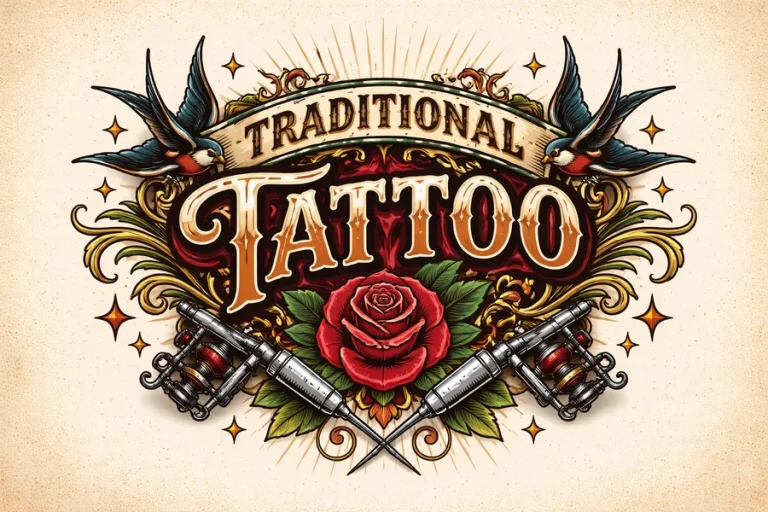
Traditional Tattoo Font Ideas for Bold and Timeless Designs
Traditional Tattoo font is an undisputed part of tattoo culture more than 100 years. This type of typography has been the hallmark of bold lettering, sharp lines and powerful personality and has become an art classic in tattoo design. The lettering style has strong significance and aesthetic strength, as it did since the times of sailors in the early 1900s, and it has today with the tattoo lovers.
This type of lettering is derived out of the American Traditional tattoo movement. The tattoos that sailors typically got were usually symbolic of their journeys, convictions and family. The words and names were frequently inked with bold and decorative lettering that was capable of standing the test of time on the skin. This unique style became over the years what is today known by many people as the traditional type of tattoo.
The letterforms of these fonts continue to be used today in designers and tattoo artists since these types are easily read, striking to the eye and have a lot of character. The style is very strong in its cultural identification whether it is the body art style, posters, or branding.
Key Characteristics of Traditional Tattoo Font
The recognizable features of design make this kind of lettering popular and one of the reasons that contribute to its popularity. There are some broad-based visual rules that create traditional tattoo lettering to be perceived against other fonts.
To begin with, bold strokes are one of the features. The use of thick outlines at least makes the letters clear even when the tattoos get old. This utilitarian design feature has since become one of the iconic features in the tattoo scene.
Second, the decorative features are frequently mentioned in the letters. Little curls, spikes or serif like edges provide character but do not render the text hard to read. These facts form a retro-style which reminds the traditional tattoo art.
The other typical characteristic is heavy spacing and balance. The letters are made to appear heavy and molded such that the words can be read out even when at a distance. It is particularly critical when it comes to tattoos since the drawings should not be obscured on curvy areas of the body.
Lastly, most of the classic letterforms of tattoos are somewhat insubordinate and daring. The shapes are assertive and communicative, that is why they are commonly used with significant words, slogans and names.
Popular Styles Inspired by Traditional Tattoo Font
Certain lettering styles have been based on the old-fashioned tattoo typography. All these have their distinct personality, but have a common appearance of bold and vintage style attributed to the tattoo culture.
The most familiar is old school lettering. It has heavy lines and a little rounded over edge, and is often combined with traditional tattoo symbols including anchors, roses and swallows.
Another form of fonts is sailor. These fonts were shaped by the nautical motives and could be regularly met in the tattoos symbolizing the sea adventures or the maritime culture.
Vintage script styles also steal some features of the traditional tattoo lettering. These fonts are usually adorned with graceful curves and ornamental lines without sacrificing the bold lines required to do tattoos.
Contemporary designers have as well developed computerized typeface designs based on the conventional tattoo letters. These fonts are widely applied in the graphics design, branding of clothing and in the poster industry since they provide a nostalgic impression of traditional tattooing.
How Tattoo Artists Use Lettering in Designs
Lettering is a very strong element in tattoo art as letters are usually highly personalized. A suitable tattoo font contributes to conveying that meaning in addition to contributing to the overall visual aesthetic of the tattoo.
Tattoo makers are very keen to the type of lettering that they use depending on the theme of the tattoo. As an illustration, the bold traditional lettering is typically used in memorial tattoos as it is perceived to be strong and permanent. Correspondingly, inspirational quotes or personal slogans are also often made with a traditional tattoo typography.
The position is also important when dealing with lettering tattoos. Curved regions like the forearm, chest or shoulder must use fonts that can be read without any movement of the skin. These parts can be used with traditional lettering of tattoos since the thick lines are clear.
Artists might also mix lettering with conventional imagery of tattoos. Symbols such as heart, dagger or banner can be surrounded by words to make complete and significant compositions.
Tips for Choosing the Right Traditional Tattoo Font
The choice of the appropriate lettering style can be both aesthetic and practical. A nice tattoo font must complement the content, but also it must be aging well on the skin.
Can traditional tattoo fonts be used in graphic design?
Yes, many designers use tattoo-inspired fonts in branding, posters, clothing designs, and digital artwork because of their strong vintage appearance.
What words work best with traditional tattoo lettering?
Short phrases, names, motivational quotes, and meaningful words work best because the bold style emphasizes strong messages.
Do traditional tattoo fonts age well on skin?
Yes, the thick lines and simple shapes help the letters remain visible and readable even after many years.